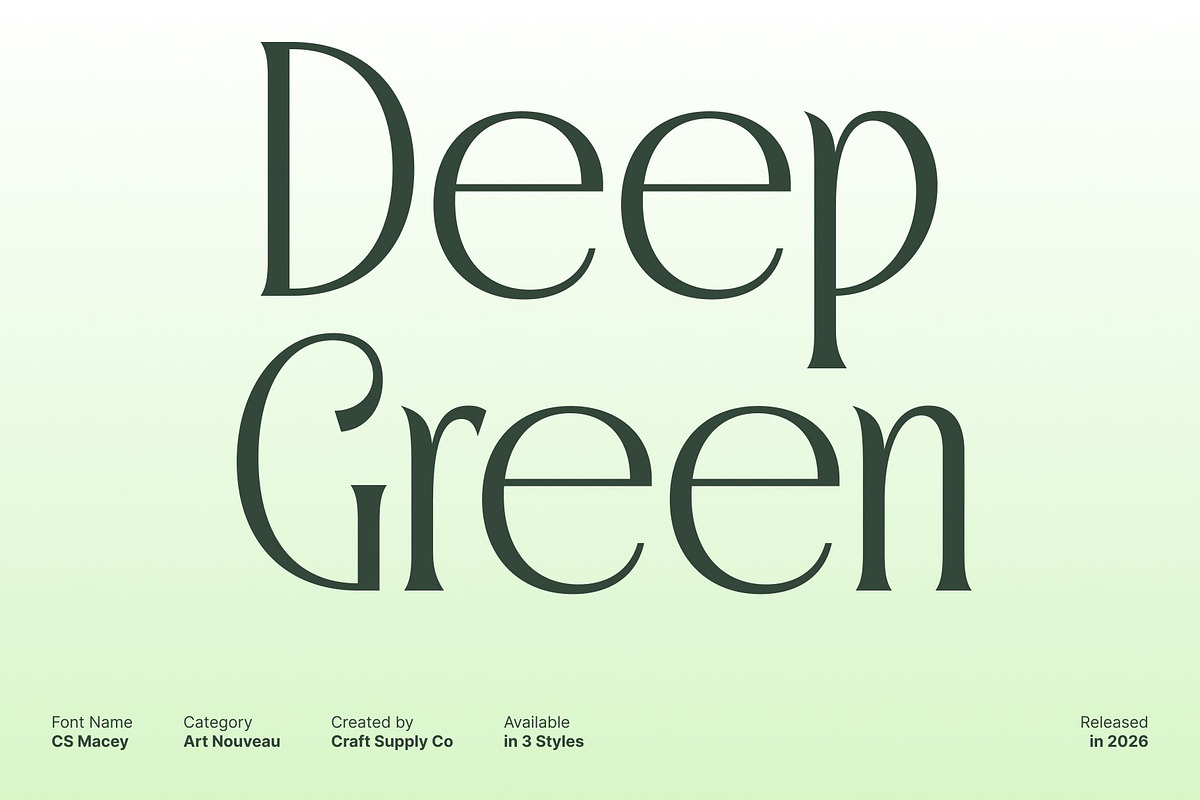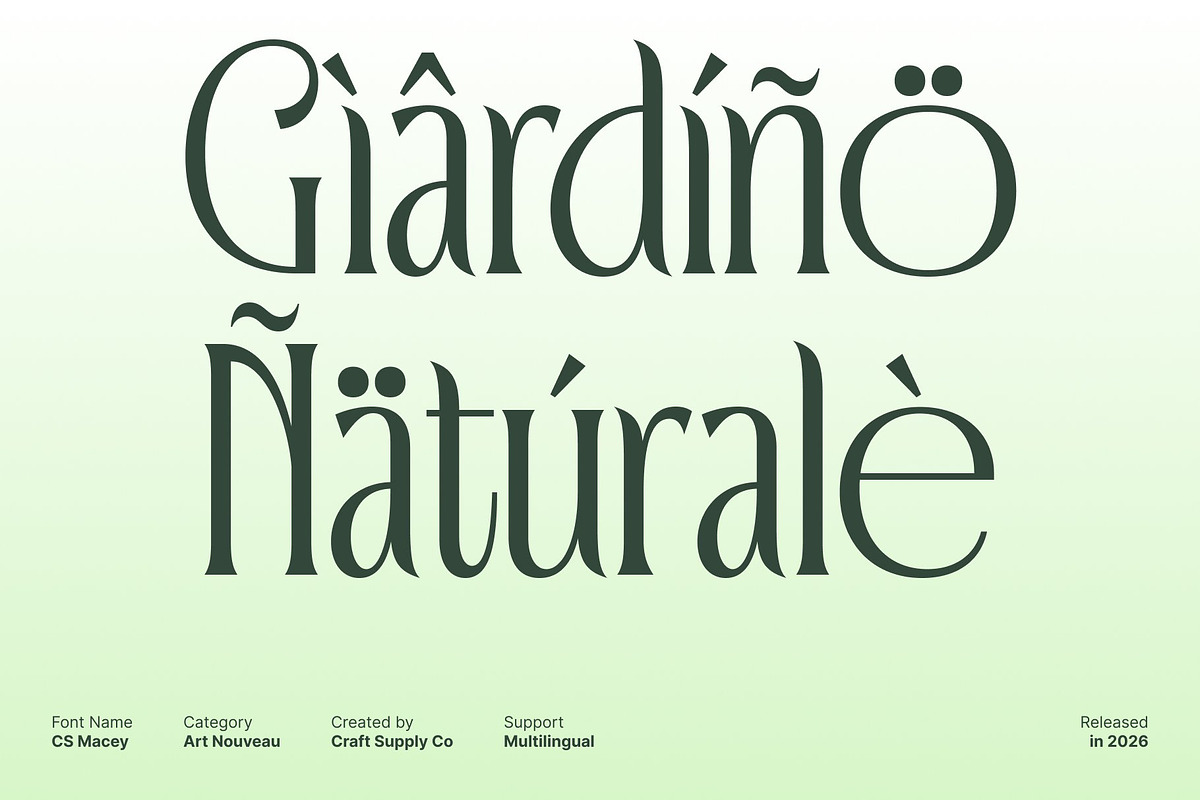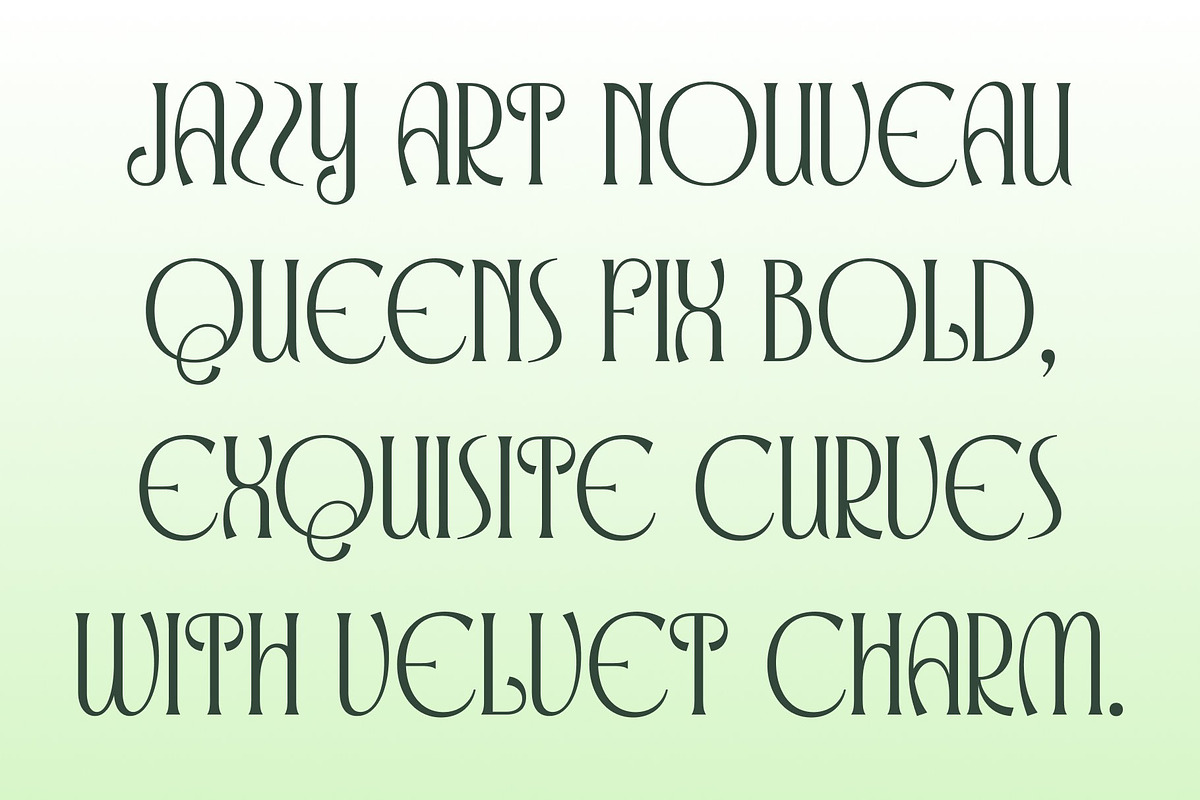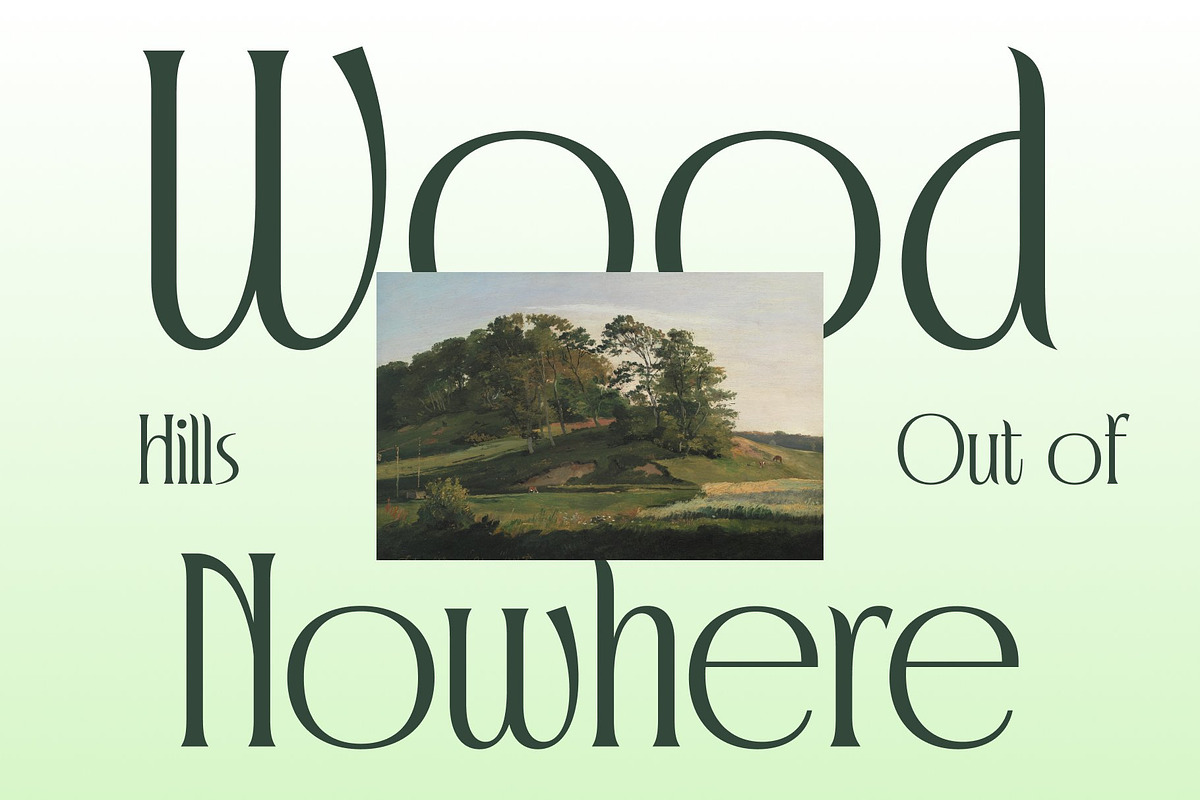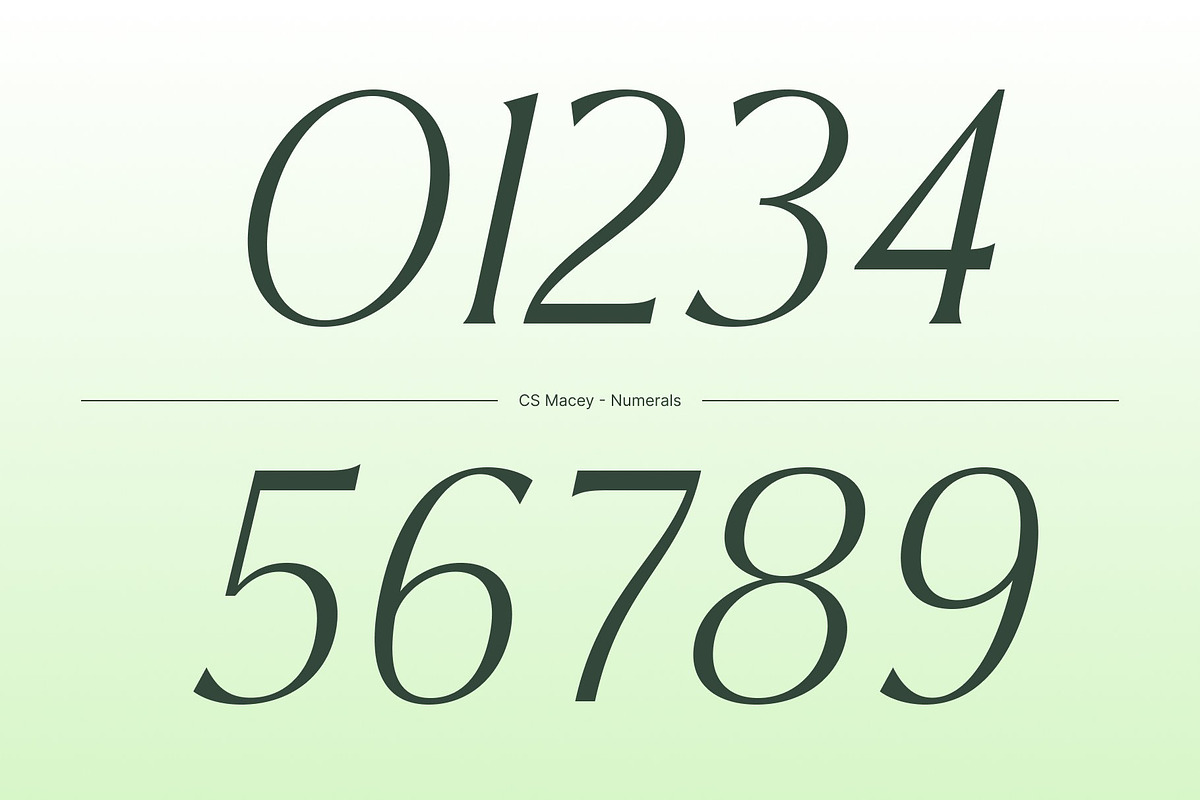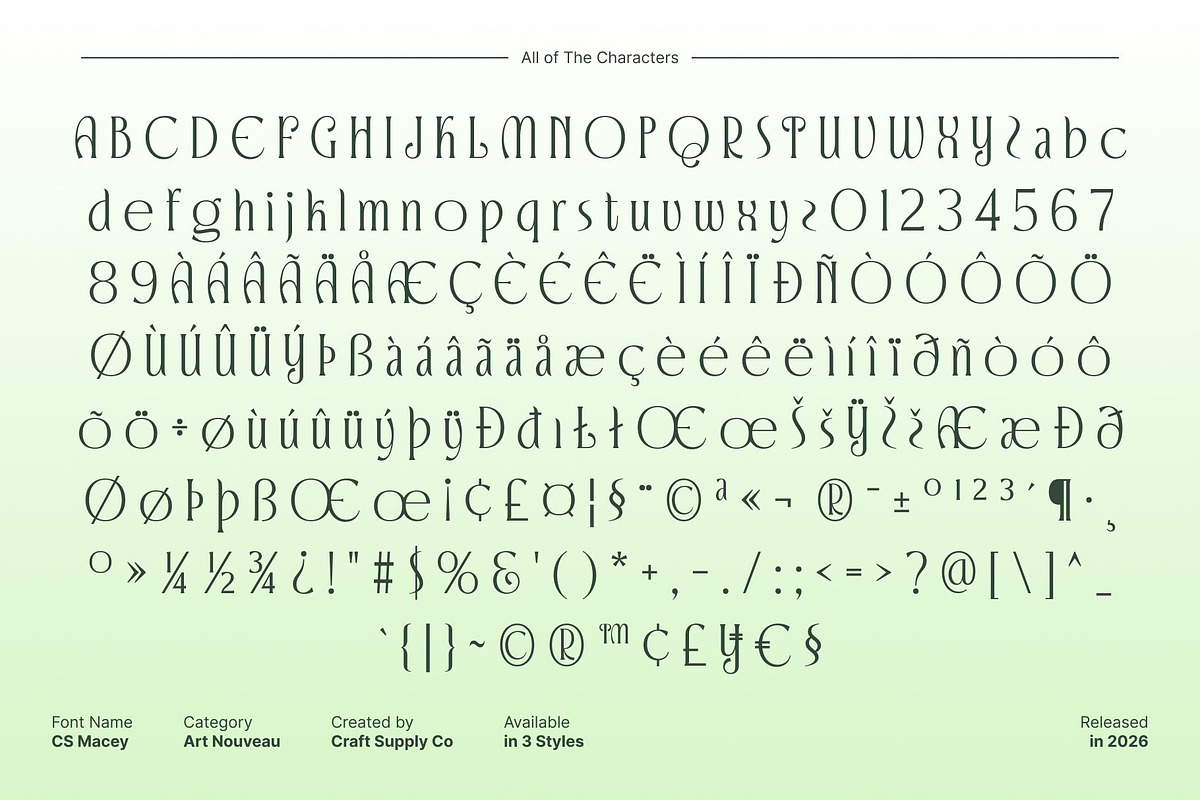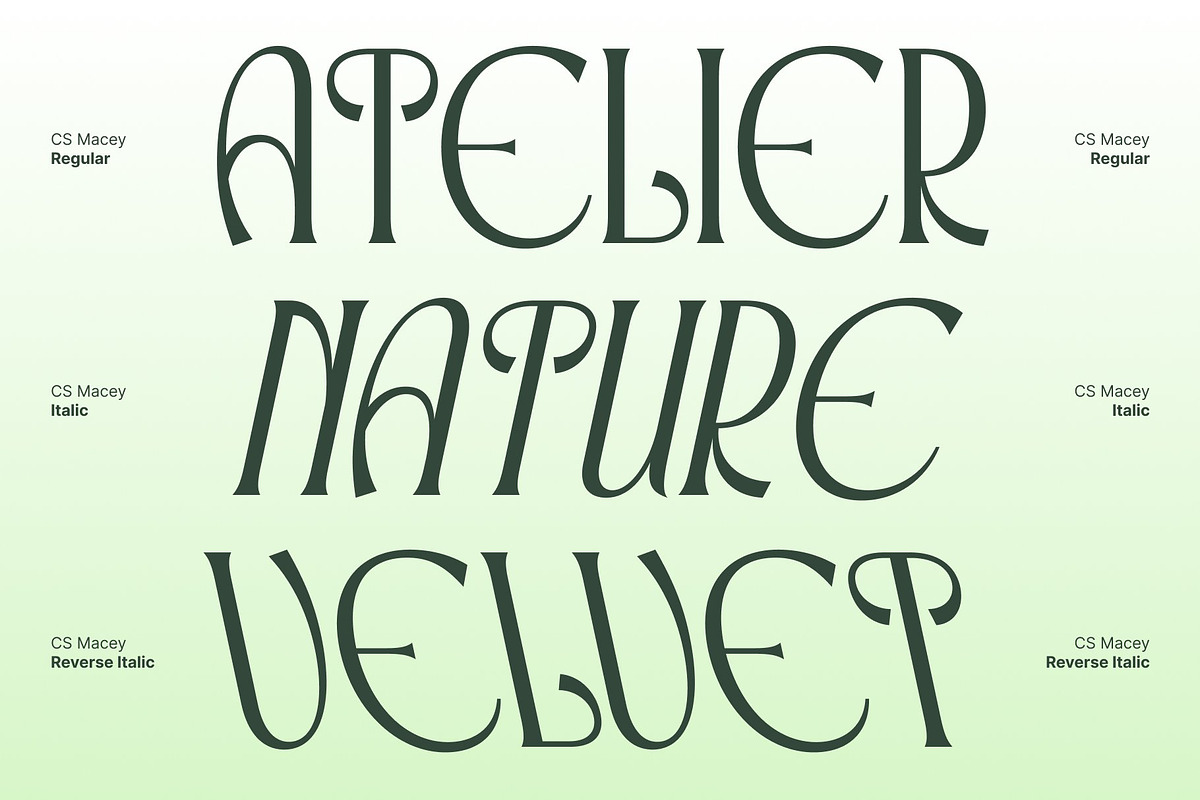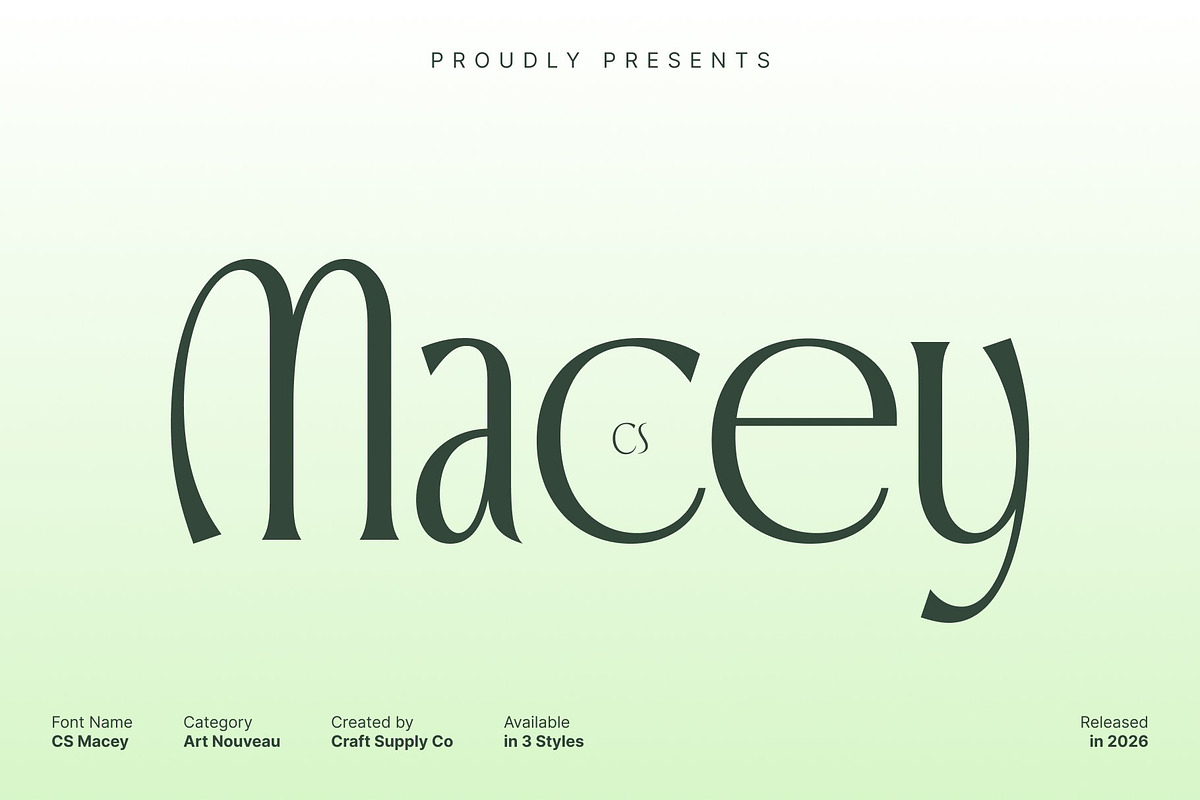
CS Macey – Art Nouveau Font
CS Macey – Flowing Art Nouveau Elegance with Modern Beauty
Modern Art Nouveau Display Font with Organic Grace This is a modern Art Nouveau display font defined by smooth organic lines and graceful movement. Inspired by the flowing beauty of classic Art Nouveau design and reinterpreted with a contemporary sensibility, this font delivers an elegant and fresh visual presence. Its refined curves and harmonious structure create a sophisticated aesthetic that feels artistic, stylish, and timeless.
Elegant Curves with Natural Flow The character of this font lies in its beautifully flowing letterforms. Each character is shaped with soft, organic curves that create a seamless visual rhythm, giving the font a sense of natural movement and balance. This beauty of flow enhances the font’s elegance, allowing it to feel expressive without becoming overly decorative.
Fresh Expression with Artistic Sophistication** This font blends decorative elegance with modern refinement, offering a fresh take on Art Nouveau-inspired typography. Its clean execution and contemporary balance make it suitable for today’s design needs while preserving artistic charm. This fusion creates a font that feels luxurious, creative, and visually engaging across premium applications.
Perfect for Editorials, Luxury Branding, and Fashion Designed for high-impact and refined use, this font is perfect for editorials, luxury branding, fashion campaigns, packaging, and premium visual identities. Its elegant display style enhances headlines and key visuals with artistic flair and sophistication.
- CS Macey Regular
- CS Macey Italic
- CS Macey Reverse Italic